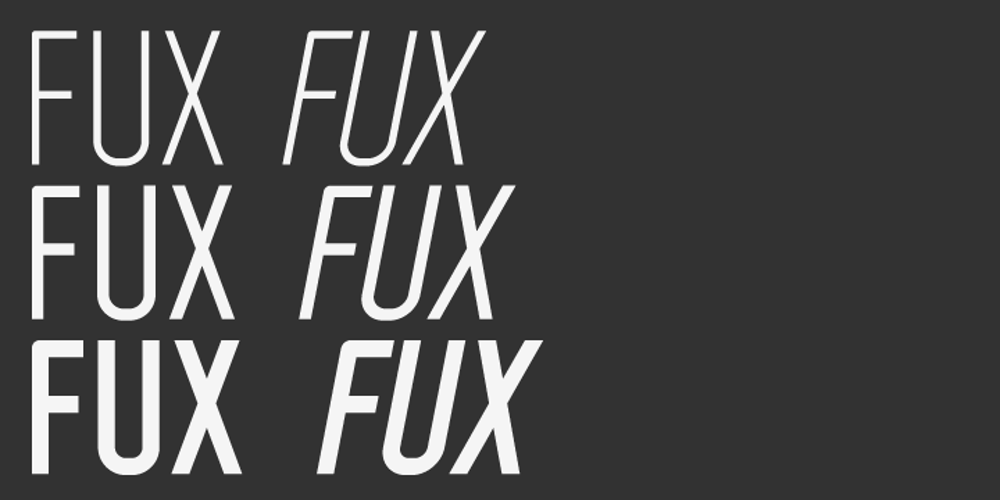
Fux font
Fux Font Family was designed by published by Rodrigo Fuenzalida. Fux contains 6 styles and family package options. Fux is a condensed, neutral looking font, that features and extended ligature set, small caps, old style numbers and stylistic alternates, that should help to fulfill all your type setting needs. Is perfect to be used as big display and title font, and works very good in small sizes and paragraphs.